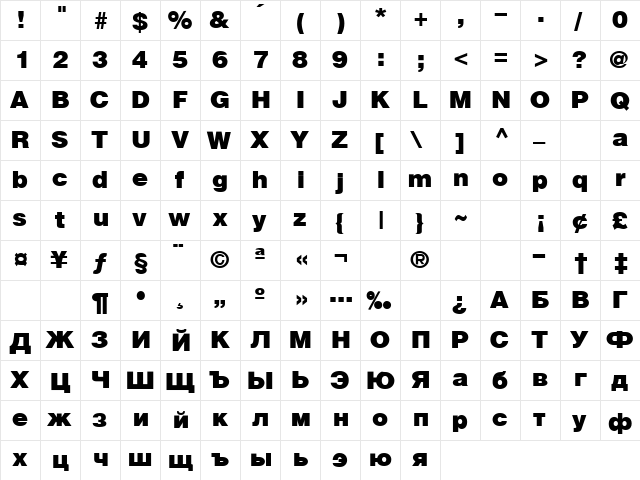
Helios-Black Regular
Design Context for Helios-Black Typeface
Helios-Black takes a measured approach to typography — its balanced proportions and neutral character make it a reliable workhorse for both digital and print work.